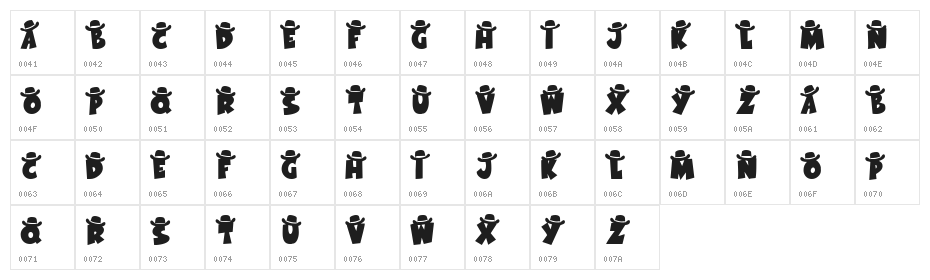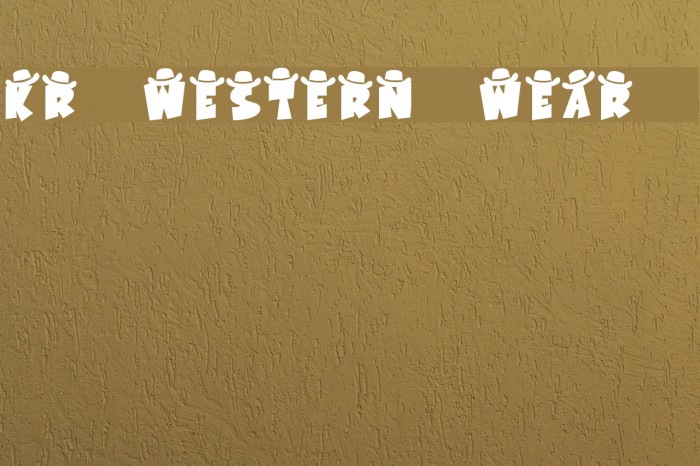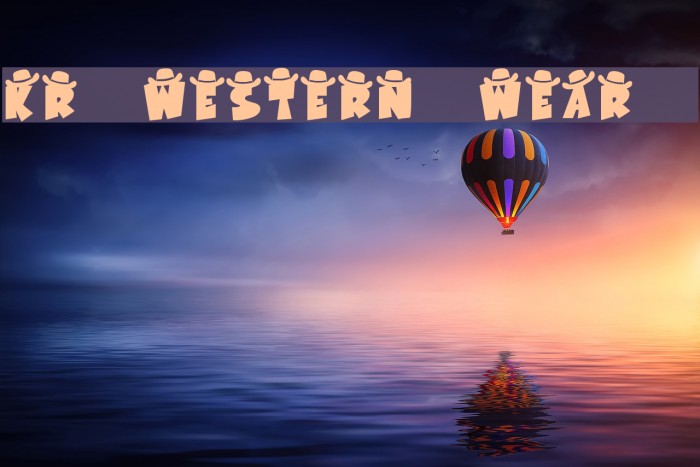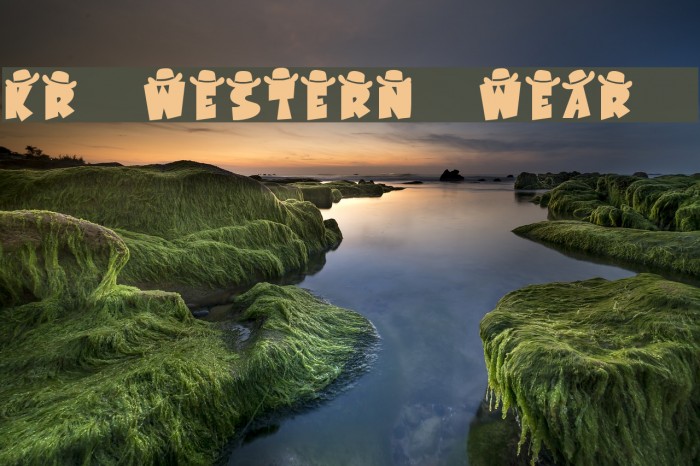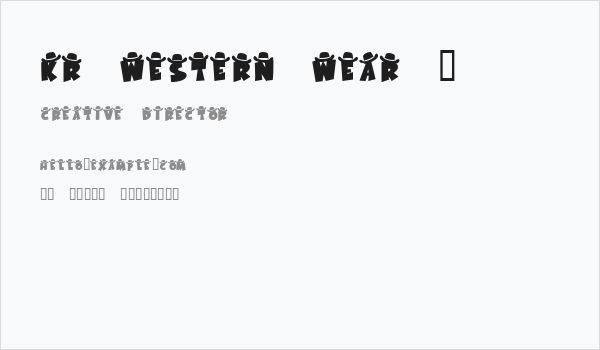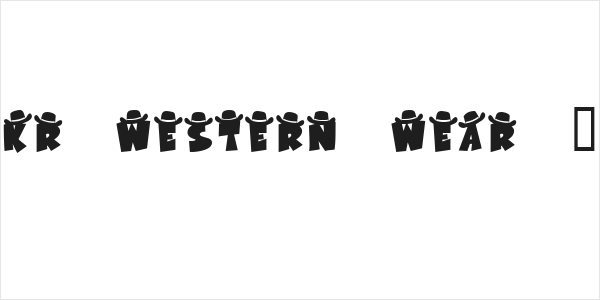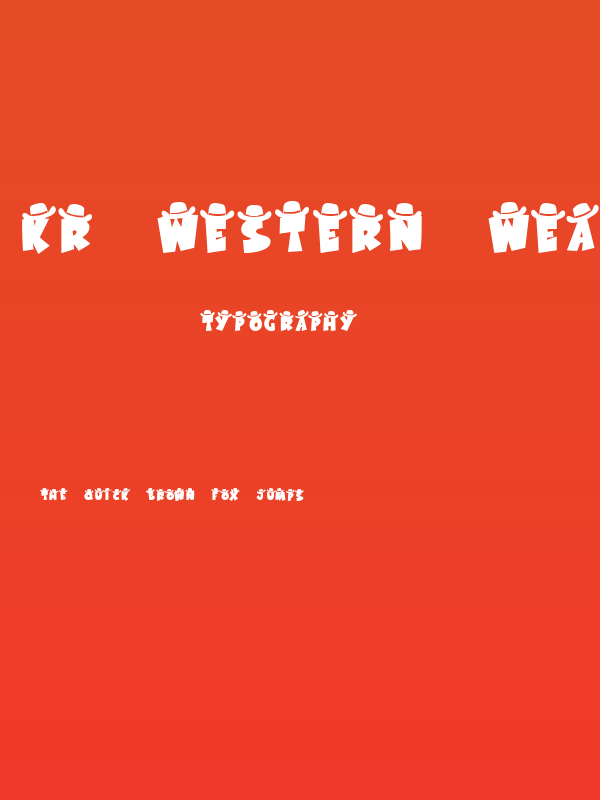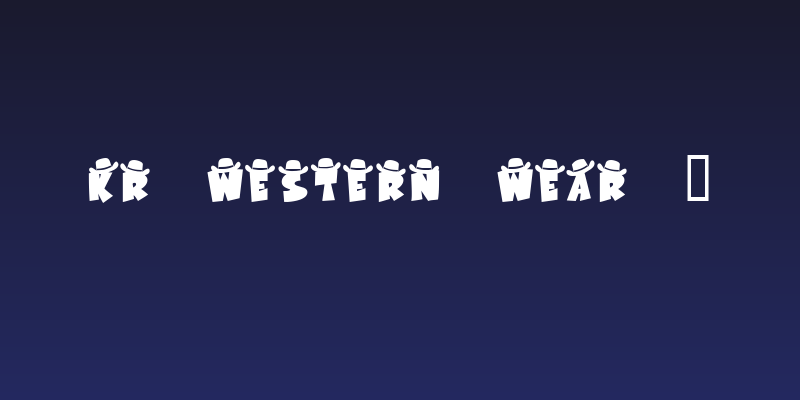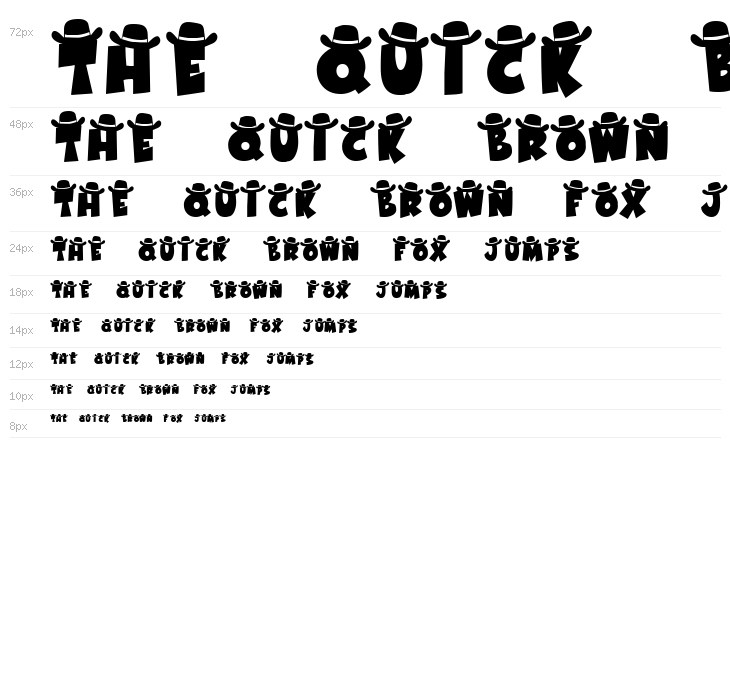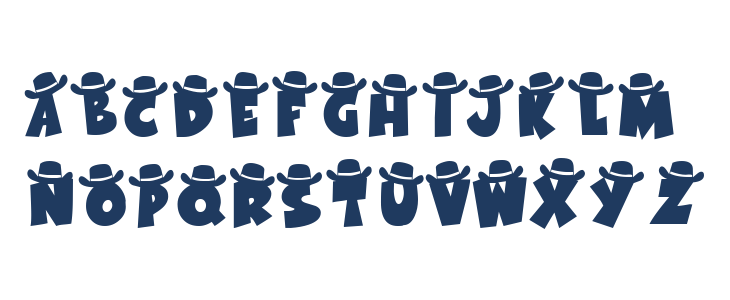
KR Western Wear 1 Font
KR Western Wear 1 Description
This playful and bold font features a unique Western theme, with each character adorned with a cowboy hat. The letters are thick and blocky, giving a strong and sturdy appearance, reminiscent of the Wild West. The design incorporates a fun and whimsical style, making it ideal for projects that require a touch of humor or a rustic, cowboy aesthetic. The font maintains a consistent width across all characters, ensuring readability while adding a decorative flair. Its distinctive style makes it stand out, perfect for themed events or creative designs.
| Use Case | Headlines, Logos, Themed Events |
| Proposed Projects | Ideal for Western-themed posters, party invitations, children's books, or any project needing a playful, rustic touch. |